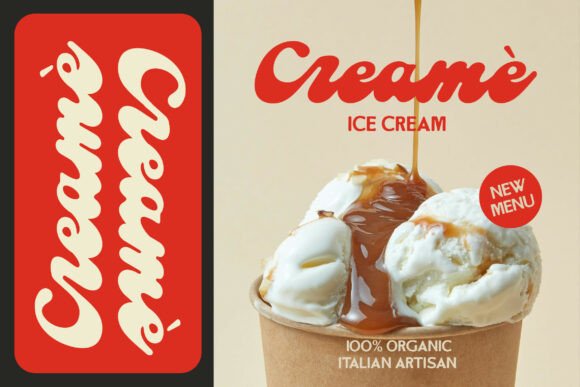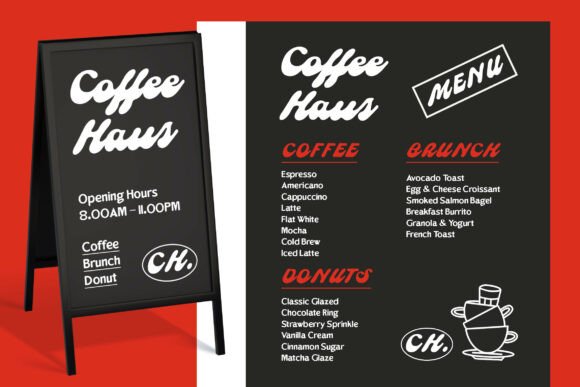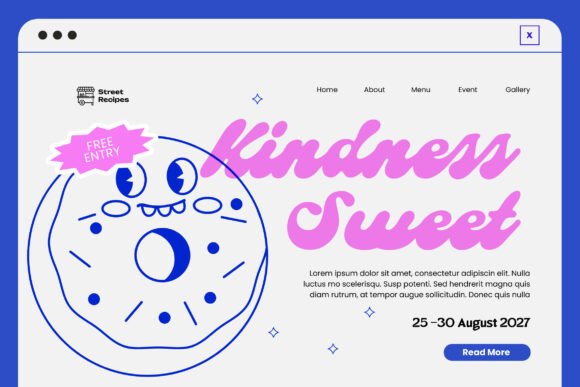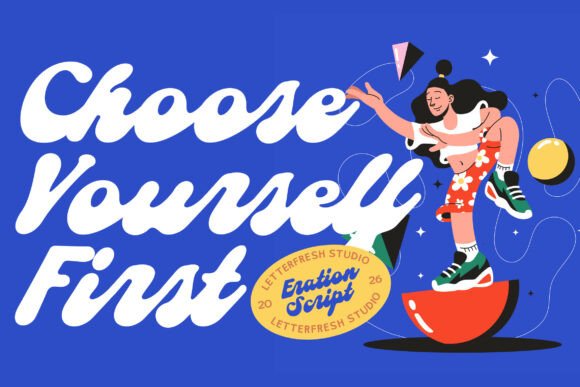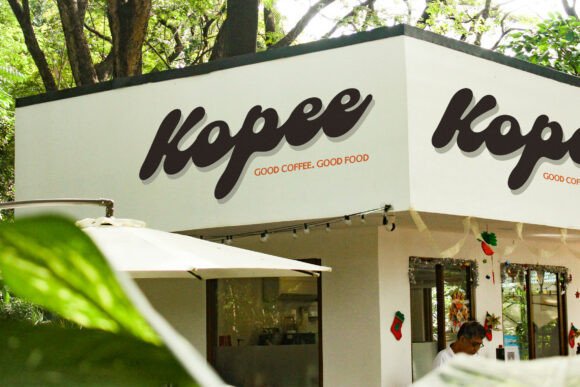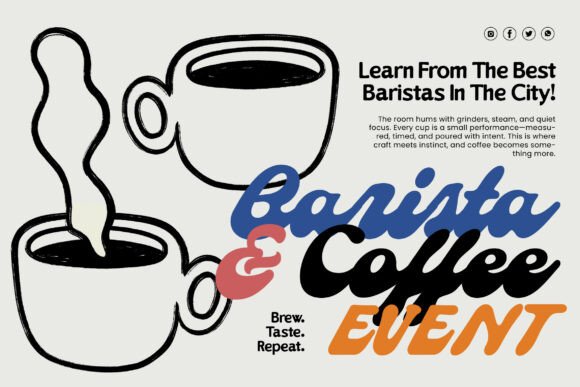
Meet Eration Script: Where Nostalgia Meets Bold Expression
In the world of typography, few fonts manage to evoke the warmth and character of vintage signage and classic brush lettering. Eration Script, however, is one such typeface that seamlessly blends nostalgia with bold expression. This slanted, hand-drawn font is designed to bring a touch of timeless flair to your designs, making it perfect for branding, packaging, album covers, and retro-inspired projects.
The Unique Charm of Eration Script
Eration Script’s unique charm lies in its thick, inky strokes and slightly blurred softness, which give it a warm, lived-in feel. The font’s hand-drawn nature makes it look like a favorite old poster or a handwritten note from the past. The slanted design adds a sense of dynamism, as if the letters are flowing effortlessly from one to the next, mimicking the smooth rhythm of vintage signage.
Eration Script is a versatile font that can be used in a variety of design projects. Whether you’re a designer looking to add some personality to your branding or a crafter seeking to create unique packaging, this font is sure to impress. Its bold expression and nostalgic feel make it perfect for:
- Branding: Add a touch of elegance and sophistication to your brand’s typography.
- Packaging: Create eye-catching labels and packaging that stands out on store shelves.
- Album Covers: Give your music project a retro-inspired look that’s sure to grab attention.
- Retro-Inspired Designs: Add a touch of nostalgia to your designs with Eration Script’s vintage feel.
Key Features of Eration Script
Eration Script boasts several key features that make it a standout font:
- Hand-drawn: Each letter is carefully crafted to give the font a unique, human touch.
- Slanted: The font’s slanted design adds a sense of dynamism and flow.
- Thick, Inky Strokes: The font’s bold strokes give it a confident, expressive feel.
- Slightly Blurred Softness: The font’s softness adds a touch of warmth and nostalgia.
Why Choose Eration Script?
With so many fonts available, why choose Eration Script? Here are just a few reasons:
- Unique Character: Eration Script’s hand-drawn nature and slanted design make it a one-of-a-kind font.
- Versatility: The font can be used in a variety of design projects, from branding to packaging.
- Timeless Flair: Eration Script’s nostalgic feel ensures that your designs will stand the test of time.
In conclusion, Eration Script is a standout font that brings nostalgia and bold expression together in a unique and captivating way. Whether you’re a designer, crafter, or simply someone who appreciates great typography, this font is sure to impress. So why wait? Get Eration Script today and start creating designs that are truly timeless.